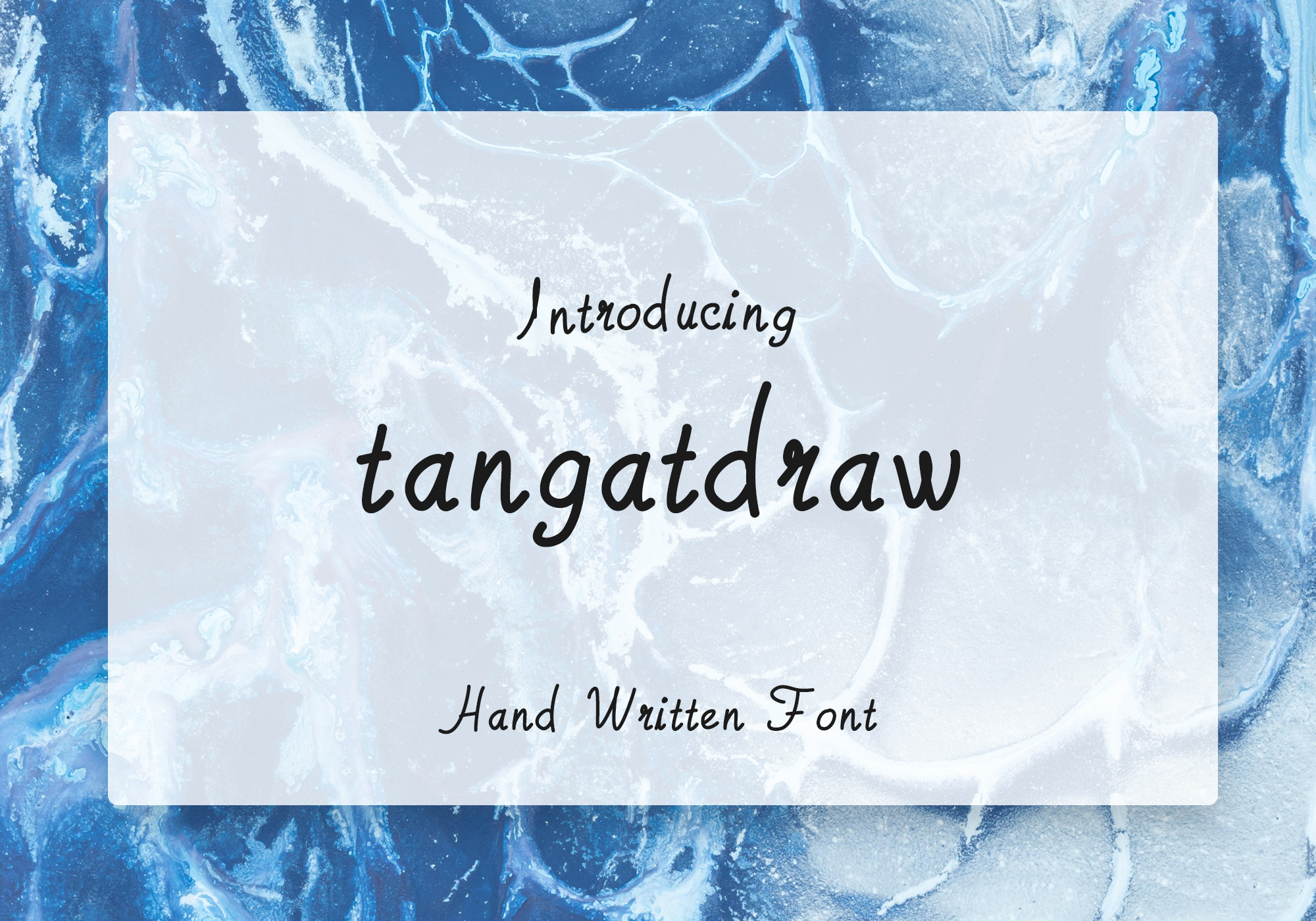
Tangatdraw Hand-drawn written font
Tangatdraw is a free hand drawn handwritten font.
The font is perfect for any kind of digital projects which have to do with free hand drawn style of writing. Is more about funky and kids projects.